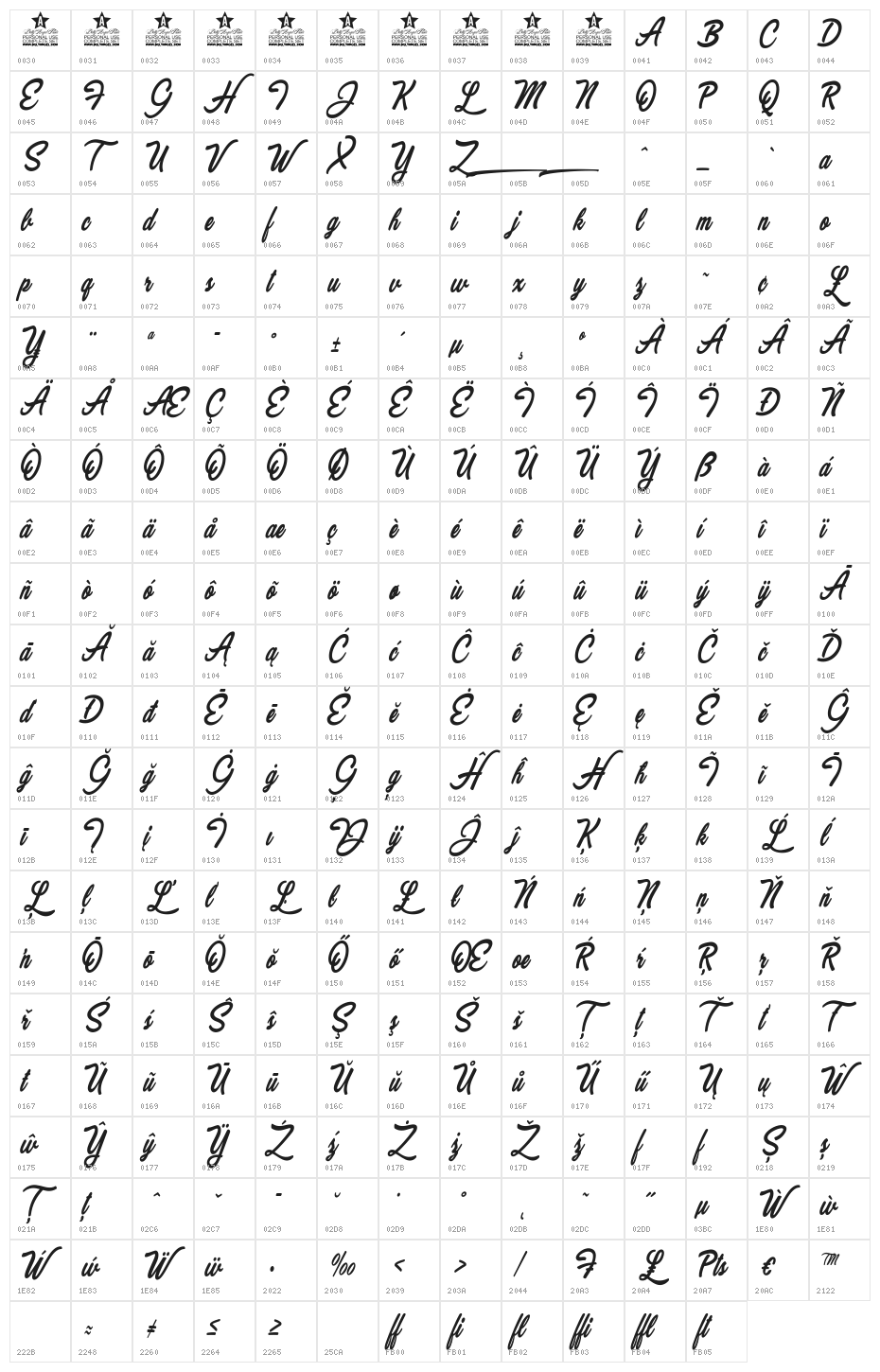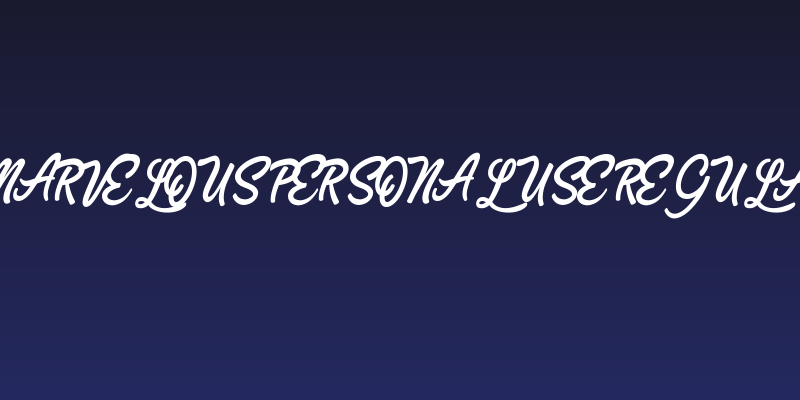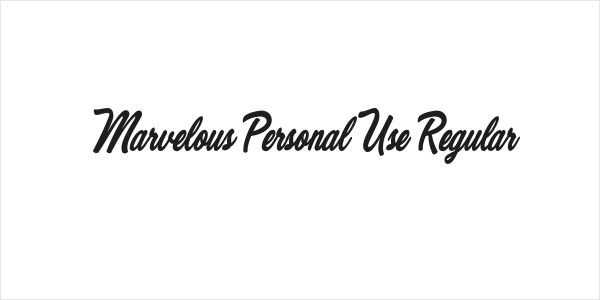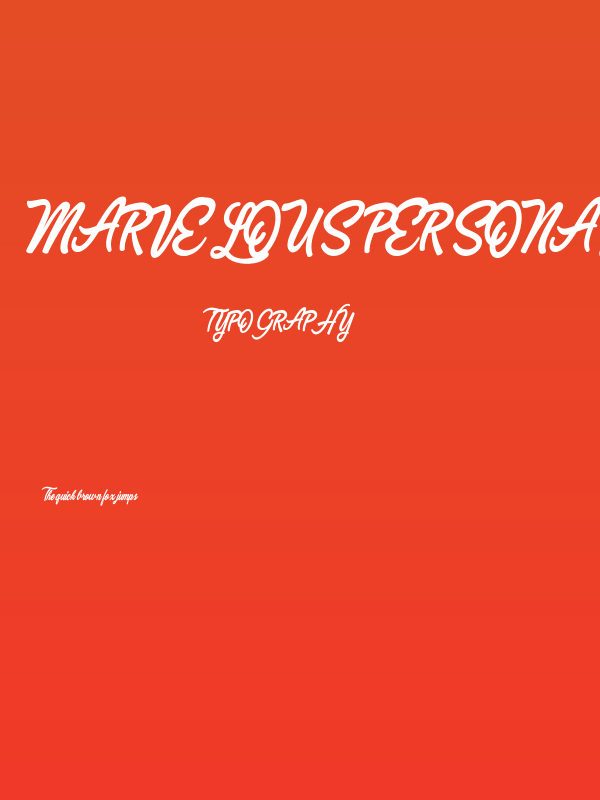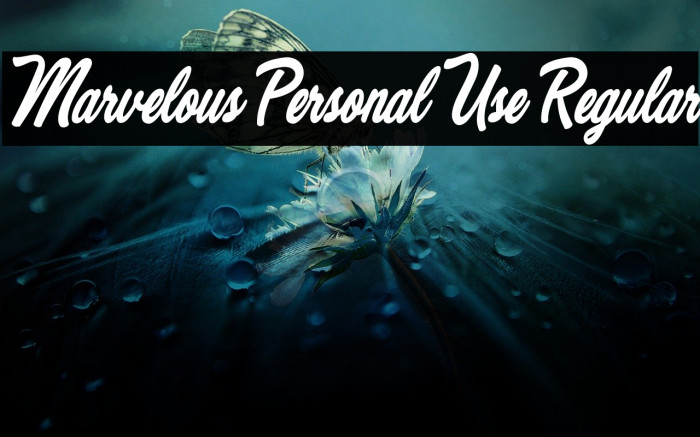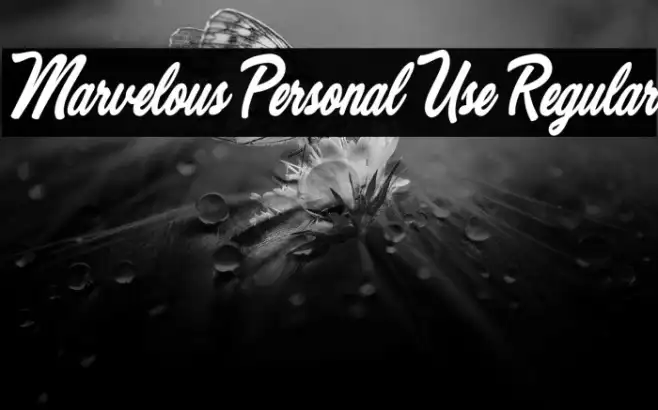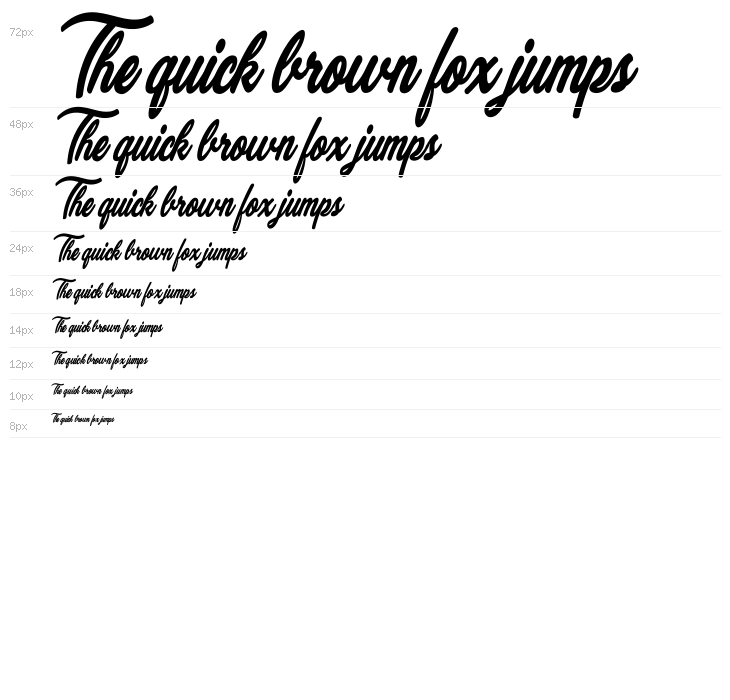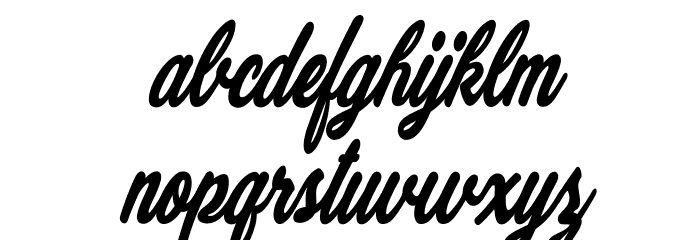
Marvelous Personal Use Regular Font
Marvelous Personal Use Regular Description
This font features a dynamic and flowing script style, characterized by its elegant curves and smooth connections between letters. The uppercase letters exhibit a bold and confident presence, while the lowercase letters maintain a consistent and harmonious flow. The font's design is reminiscent of classic calligraphy, with a modern twist that adds a touch of sophistication. The characters are well-balanced, with a slight slant that enhances the overall fluidity. This font is versatile, making it suitable for a variety of creative projects that require a personal and artistic touch.
| Proposed Projects | Ideal for wedding invitations, branding, greeting cards, and elegant logos. |